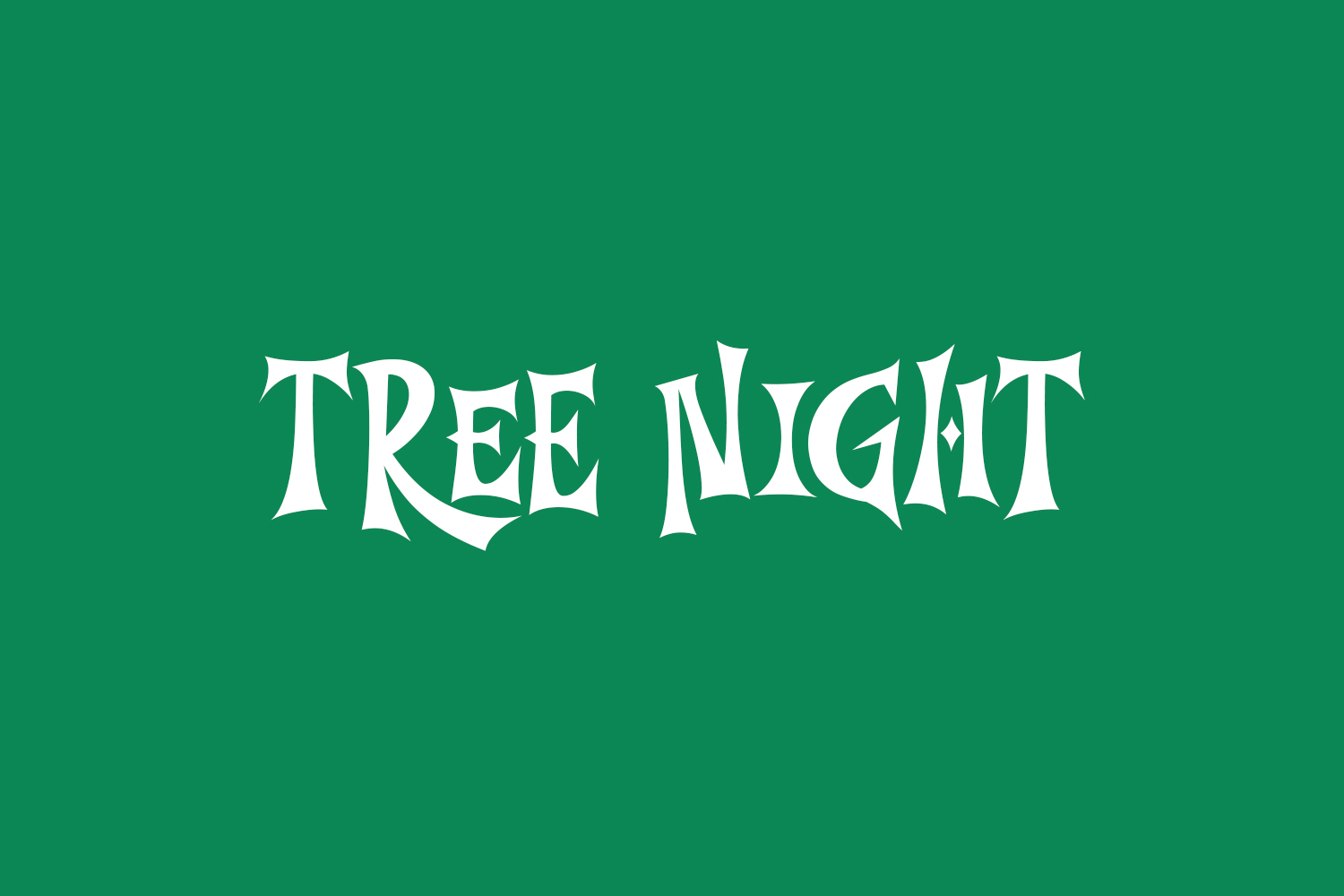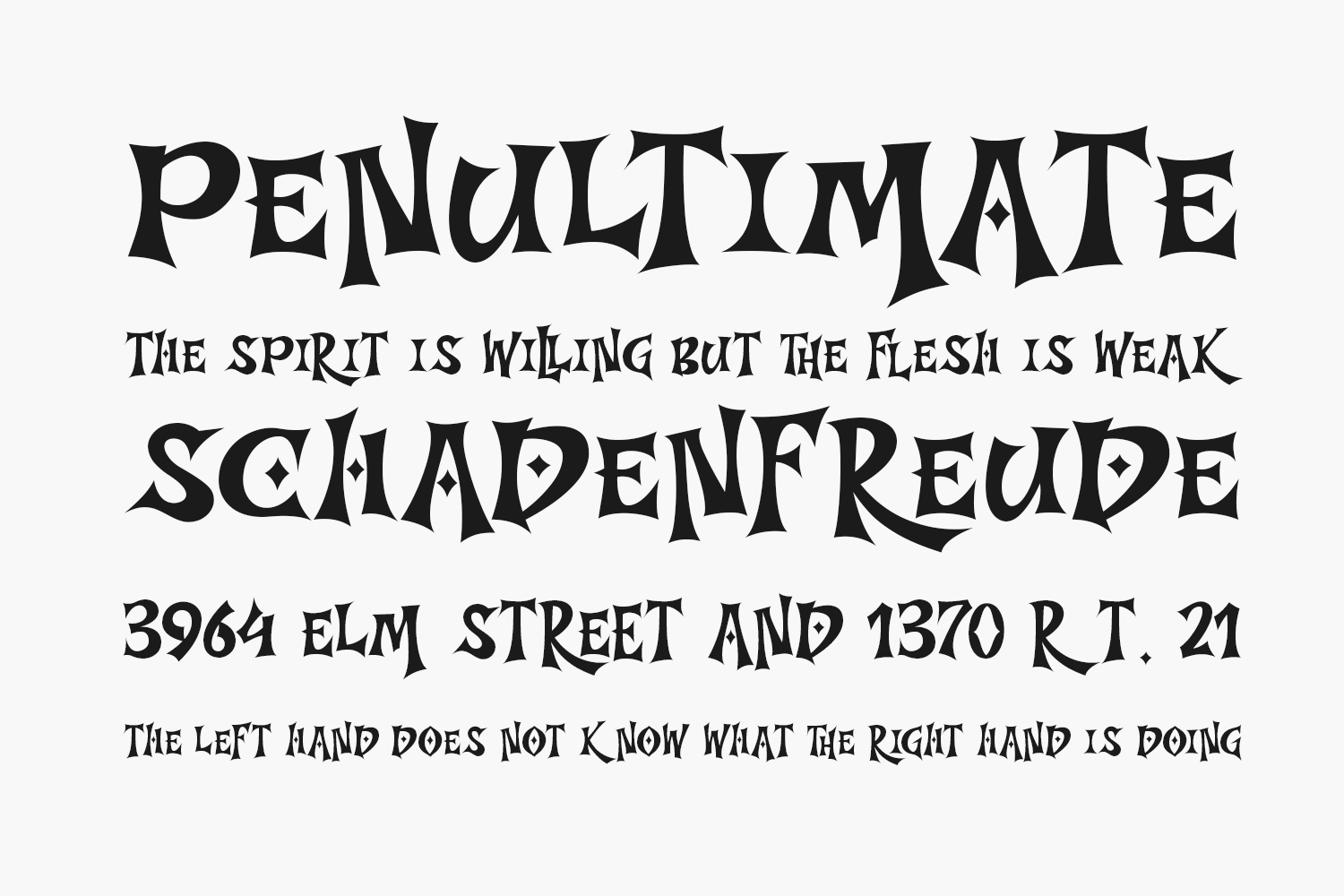
Tree Night Free Font is a unique comic serif font. It’s great for crafters and designers. Compatible with tools such as Photoshop and Silhouette design studio. Its playfulness can make it great for creative projects. Tree Night Free Font was designed by Kong Font and is free for personal use only. Please purchase the full version for commercial use.